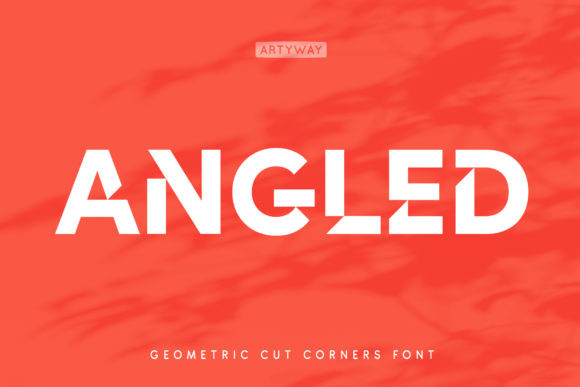
Angled Font
Angled FontAngled is a bold and geometric styled display font. This techno looking font is suitable for designs such as t-shirts, sportswear, logos, advertisements, clothing, and more.